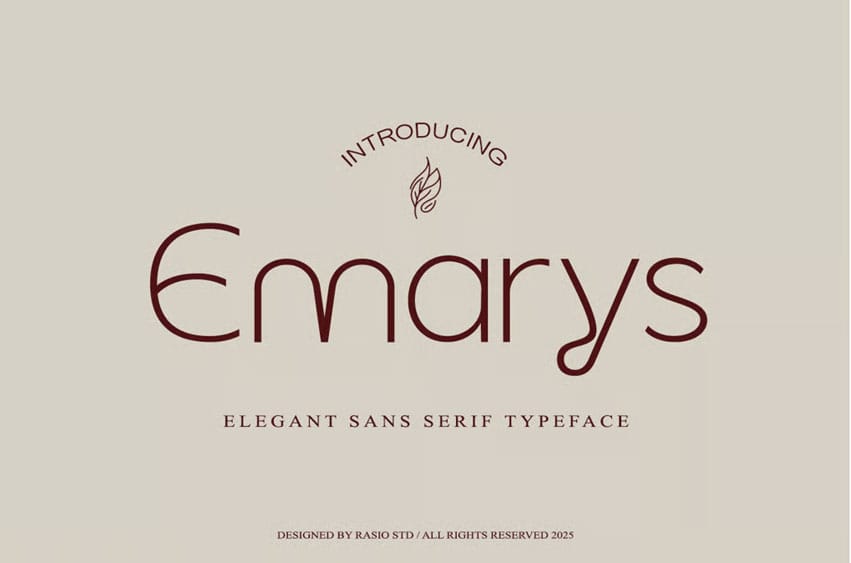
Emarys Font is a refined sans serif typeface that blends modern minimalism with graceful sophistication. Designed with balanced proportions, subtle contrast, and soft terminals, it delivers a timeless sense of elegance for premium visual branding. Each letterform exhibits smooth geometry and natural rhythm, making Emarys perfect for editorial layouts, packaging design, and luxury branding applications.
This typeface comes complete with uppercase and lowercase letters, numerals, punctuation, and multilingual support. Its versatility allows it to transition seamlessly from print to digital media while maintaining its classy character.
Relevance and Use Cases is perfect for branding agencies, editorial designers, luxury product packaging, and fashion identity projects seeking a refined and professional tone. Emarys brings elegance, clarity, and balance to any design it graces.